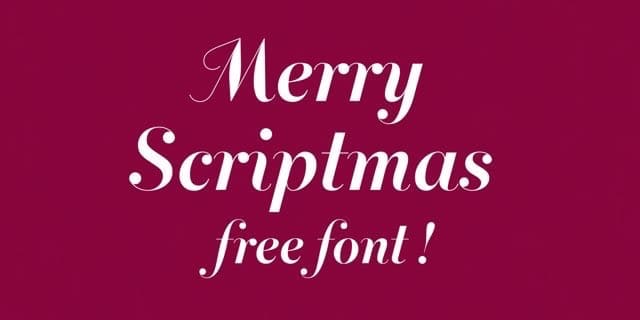
17 Essential Script Fonts for the Holidays
Creativity blossoms during the holidays - there’s something about the extra indoor time and lights that makes it the perfect time of the year to really spend time on all kinds of projects, whether for customers or loved ones, with a rekindled spirit. A tried and true way to dazzle in the holiday season is to use unique script fonts to create breathtaking print marketing campaigns and season greetings. Using script fonts on postcards, envelopes and greeting cards can certainly add a touch of sophistication to your design and automatically reminds people of those festive, ornate days . With hundreds of script fonts available online, finding the perfect script font for your holiday projects is not an easy task. With thousands of websites, it may get quite hectic and time consuming. Relax! To save you some precious time and help you find your holiday spirit, we found 17 fabulous scripts fonts just in time for Christmas! Let’s have a look:
Banana Split
A funny name for this script font with nice and circular letters that will give a futuristic look to any project. We love the bubble look and we think that this ice-cream-parlor-favorite has a bit of a snow man's feel to it too! 1 pt-banana-split Fiddums Family This script font is perfect to give a creepy look to all those Halloween projects. It was first used in the movie The Addams Family. 2 Fiddums Family Androgyne A beautiful script font developed by Dimitri Castrique. Androgyne has nice curved letters that will add a special flair to your holiday projects. Channel Are you looking for a script font that resembles perfect calligraphy? Channel is your choice. 4 Channel-Font-For-Christmas-2012 Intrique Script The Intrique Script font has a traditional feel with a modern twist, perfect for almost any project. 5 IntriqueScript Black Jack Even if the name sounds like letters for a casino, this script font soothes any holiday business project or personal Christmas card. We can see it on a Window Cling 6 Black Jack Merry Scriptmas Created by Nico Inosanto, a designer from Switzerland, this script font comes with lots of ligatures that will make your holiday projects even more outstanding. 7 merry-scriptmas MF Young & Beautiful A beautiful script font that looks just like natural handwriting with some ligatures to add some style to the font. It's also Very Lana del Rey - indie with a touch of hipster? 8 Young & Beautiful Mademoiselle K A gorgeous script font with lots of curvatures that will add a touch of elegance and sophistication to any project. 9 Mademoiselle K Lobster is an extraordinary bold condensed script font loaded with hundreds of ligatures and alternates. Some people call it the new Papyrus or Comic Sans, but we believe that if not abused, it's still an essential font. 10 Lobster Parisienne A classic, yet free spirited script font inspired by a bra advertisement from the 1960’s, Parisienne has some slight bound and intentional irregularities to give it a look of a formal script font. 11 Parisiene Janda Celebration Script The perfect script font for those projects that need an elegant, yet handwritten look with lovely connections and swirls. 12 Janda Celebration Script Marcelle A nice script font created by StereoType that will give a captivating handwritten look to your projects. 13 Marcell Shipped Goods is a script font designed by Måns Grebäck. As you can see, it has lovely ligatures and swirls that resembles writings from the 19th Century. 14 Shipped goods Dancing Script Giving any design a rather fresh and spontaneous look, Dancing Script is a vivid font were letters seem to bounce and change size slightly. It resembles scripts typefaces from the 1950’s. 15 Dancing Script Honey Script A casual script font developed by Dieter Steffmann. With some left to right glyphs that gives this script font a nice and intensive look. 16 honey-script-font-2-big Eufemia is most suitable for eye-catching headlines or displays, giving them an informal, fancy look. 17 eutemia-i.italic As you can see, there’s a script font out there to suit every discriminating taste, from elegant and chic to fun and eccentric. With Christmas quickly approaching, we wanted to share our favorites. Now you can get started on creating holiday greeting cards, calendars, envelopes, and store banners. Use these awesomely festive script fonts on your designs and may your days be merry and bright!